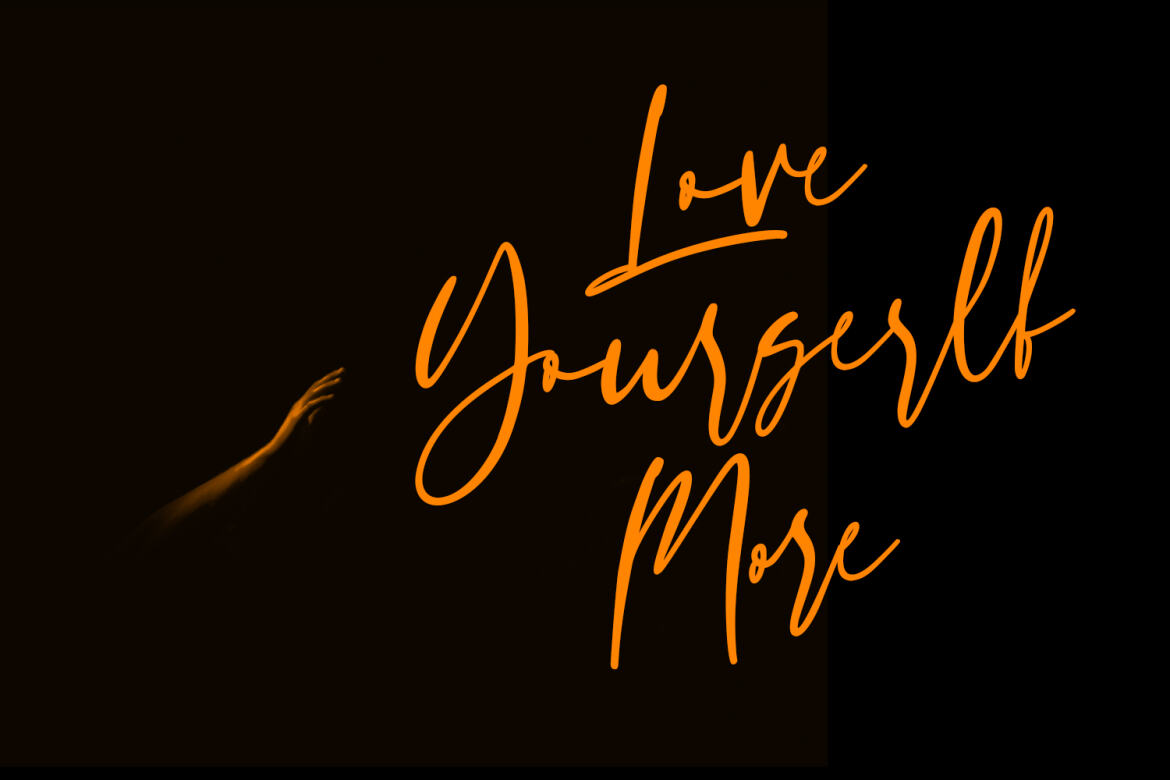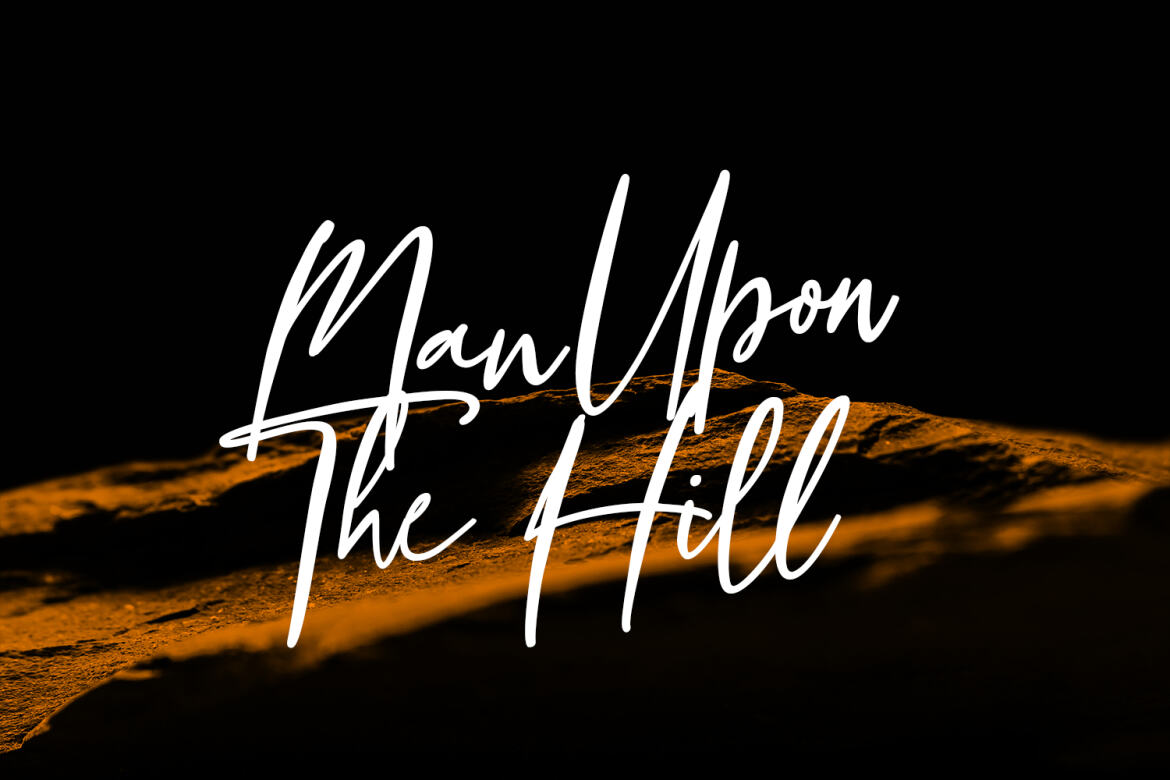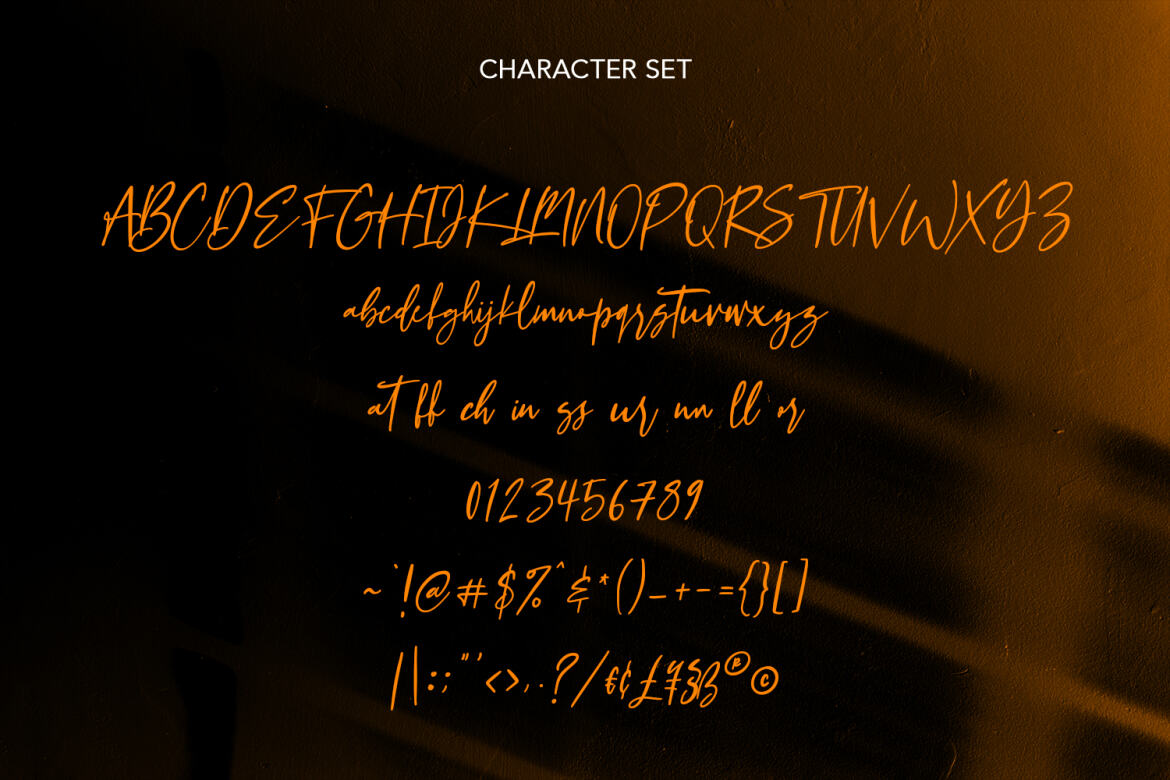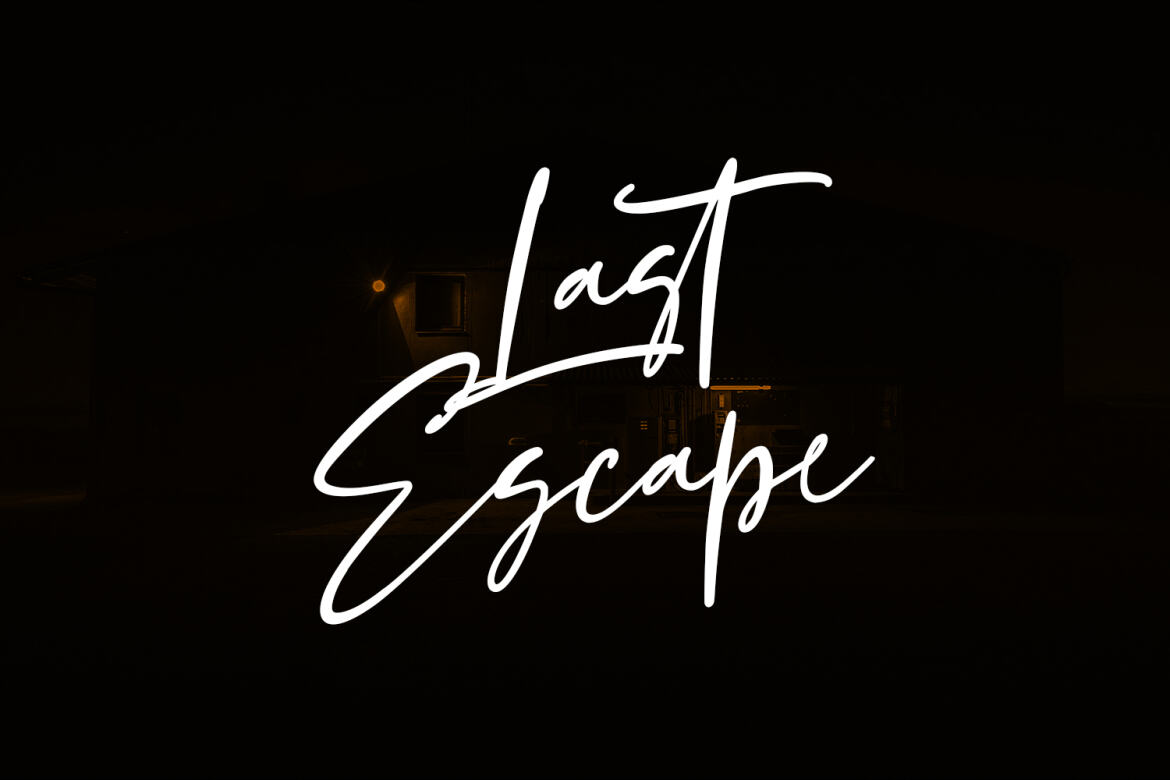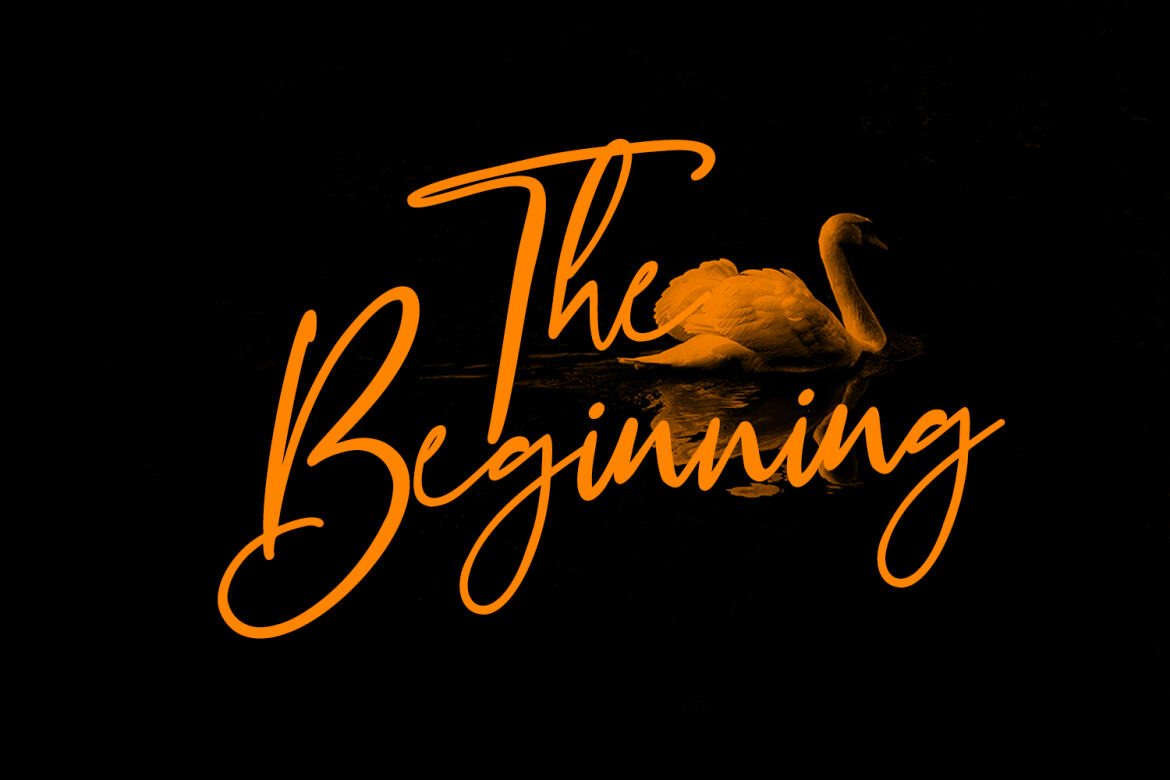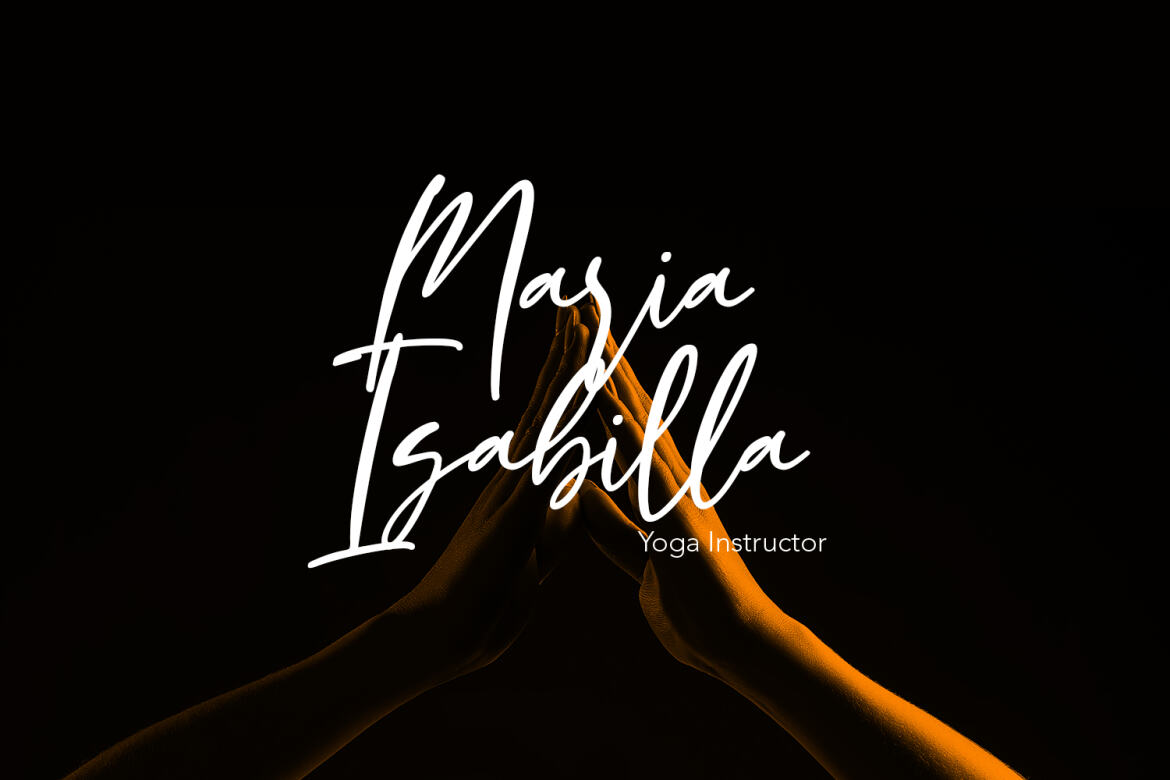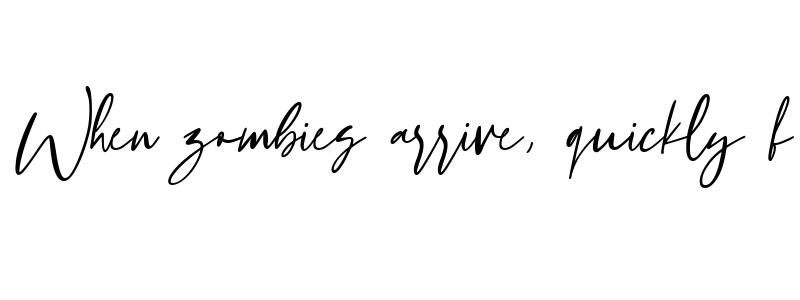
Hillstatic Script - Free Font
Hillstatic
Hillstatic is a casual script display font, with a clean stroke, slanted and fun character. It has Opentype features ligatures of character, To give you an extra creative work. Hillstatic script font support multilingual more than 100+ language. This font is good for logo design, Social media, Movie Titles, Books Titles, a short text even a long text letter and good for your secondary text font with sans or serif. Make a stunning work with Hillstatic font.